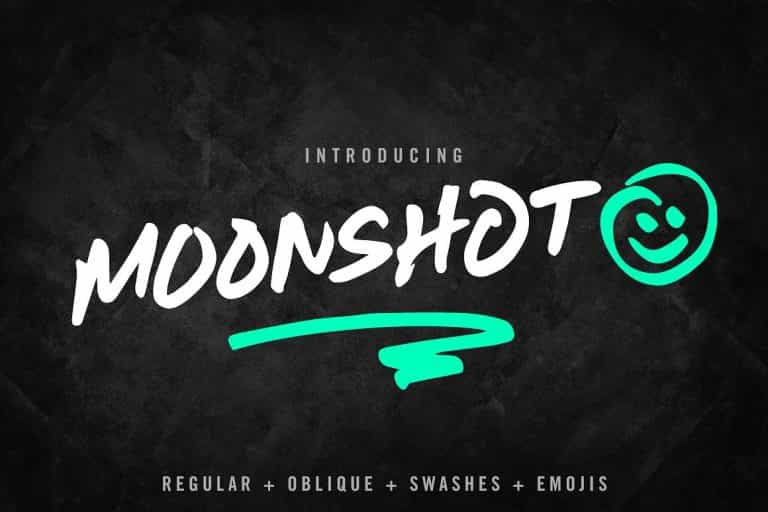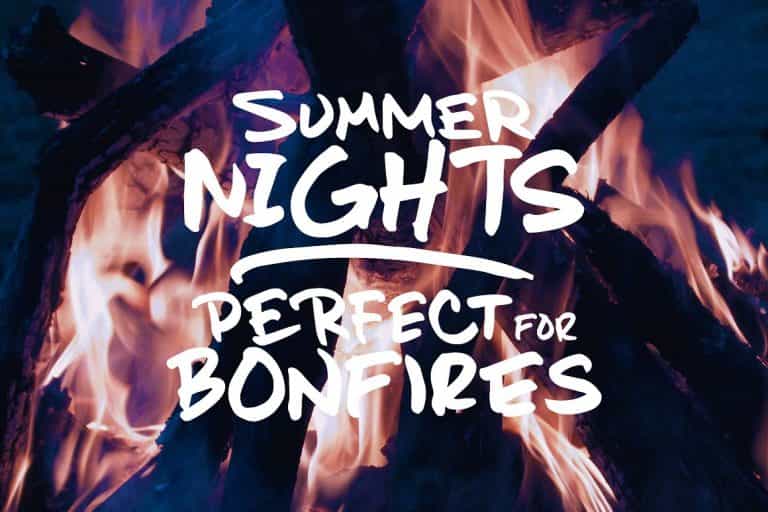
Introducing Moonshot. It was created by Scott Howard, this is a premium font which can be purchased on creativemarket but today it is free for download. Moonshot, the cool all caps font you have been searching for. There are multiple styles and extras in Moonshot, so it is now possible to create expressive type that truly feels hand-drawn (…the letters were hand-drawn after all). It consists of EMOJIS, so you can design with them and the typographic characters in a stylistically consistent way.